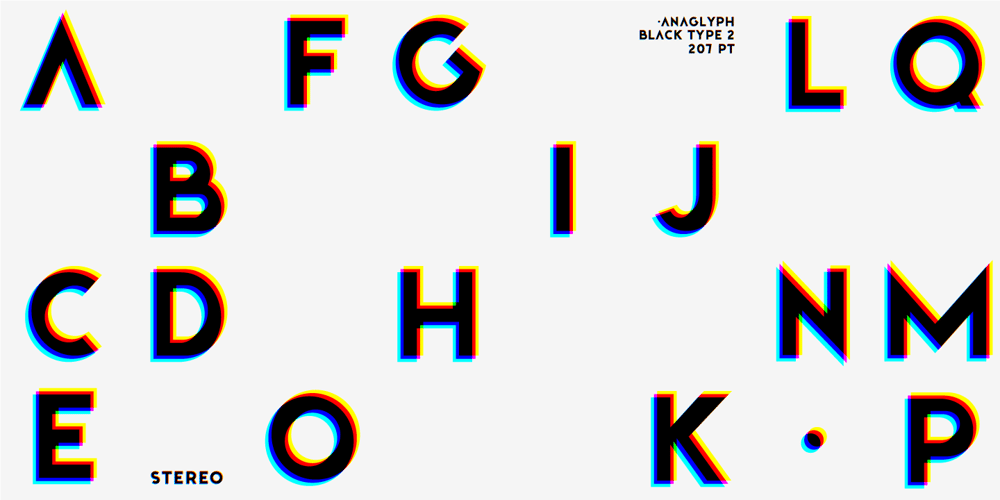
Anaglyph Font Family was designed by Lauritta Ivanova and published by Luxfont. Anaglyph contains 37 styles and family package options. Introducing incredible COLOR ANAGLYPH font. Unique font family with anaglyph stereo effect – a novelty in the field of color fonts. Inspired by global trends in contemporary design with a touch of retro 90s, electric music and minimalistic purity of glyphs. Truly a reflection of modern POP culture.Font is ideal in entertainment design. Night club poster design, fashionable business card, website title, magazine illustration – there are countless options for using it.Font family has two thicknesses – bold & regular, 3 types of stereo effect, 2 font colors with stereo effect (black and white). Font consists of letters of the same height without division into uppercase and lowercase glyphs.This font family is based on the Regular & Bold fonts Boldini – which means that if necessary you can combine these two families and they will be absolutely stylistically identical and complement each other.Check the quality before purchasing and try the FREE DEMO version of the font to make sure your software supports color fonts.Features: Free Demo font to check it works. 36 OTF SVG fonts in the family 2 thicknesses: Bold, Regular 3 types of stereo anaglyph effect 6 font colors with stereo effect Kerning IMPORTANT:- OTF SVG fonts contain vector letters with gradients and transparency.- Multicolor OTF version of this font will show up only in apps that are compatible with color fonts, like Adobe Photoshop CC 2017.0.1 and above, Illustrator CC 2018. Learn more about color fonts & their support in third-party apps on www.colorfonts.wtf- Don’t worry about what you see all fonts in black and not in multicolor in the tab “Individual Styles” – all fonts are working and have passed technical inspection, but not displayed in multicolor they, just because the website MyFonts is not yet able to show a preview of colored fonts. Then if you have software with support colored fonts – you can be sure that after installing fonts into the system you will be able to use them like every other classic font.Question/answer: How to install a font? The procedure for installing the font in the system has not changed. Install the font as you would install the classic OTF | TTF fonts. How can I change the font color to my color? · Adobe Illustrator:Convert text to outline and easily change color to your taste as if you were repainting a simple vector shape. · Adobe Photoshop: You can easily repaint text layer with Layer effects and color overlay. ld.luxfont@gmail.com